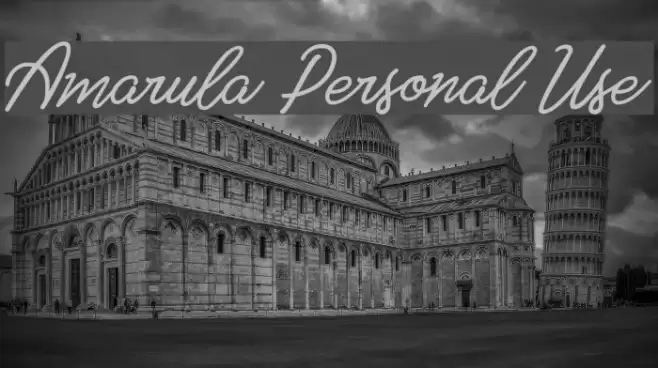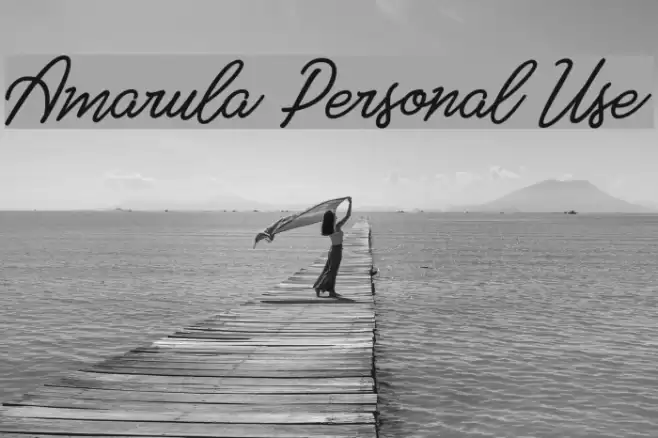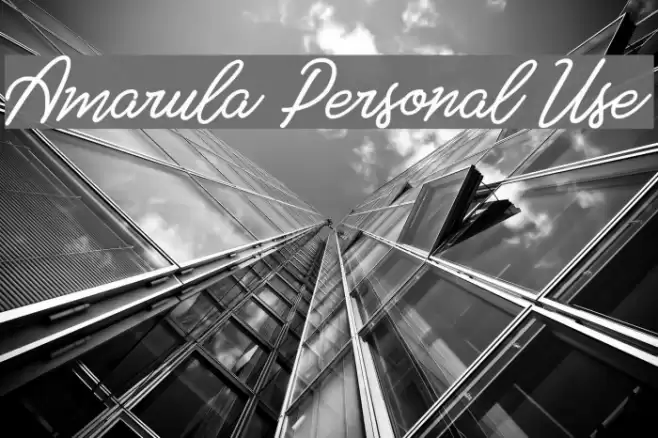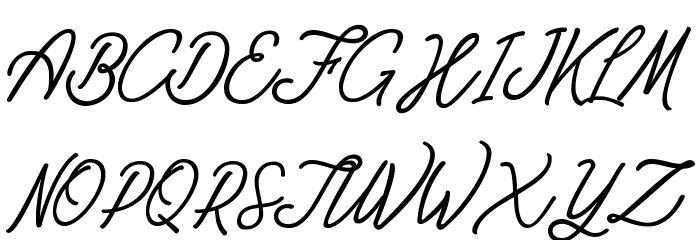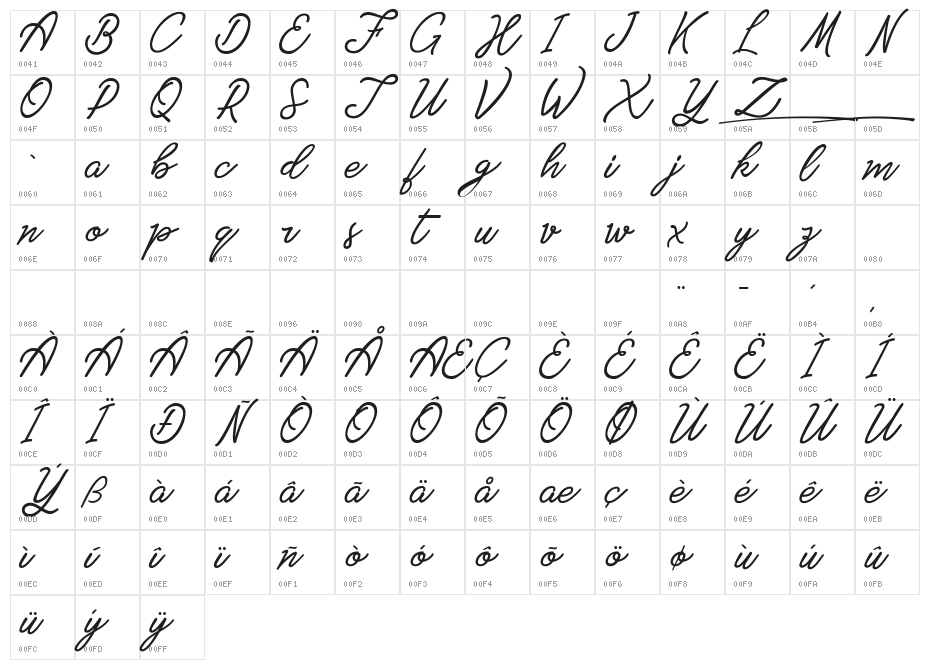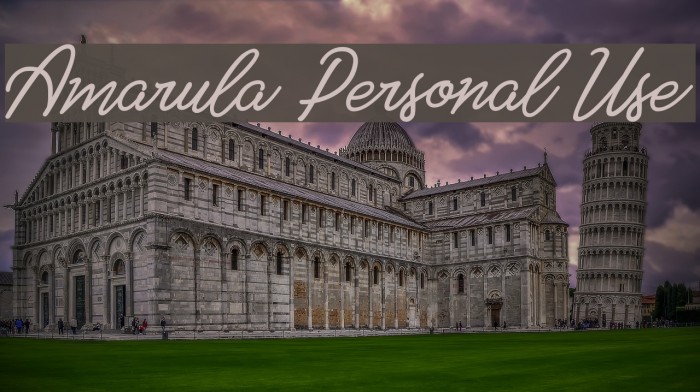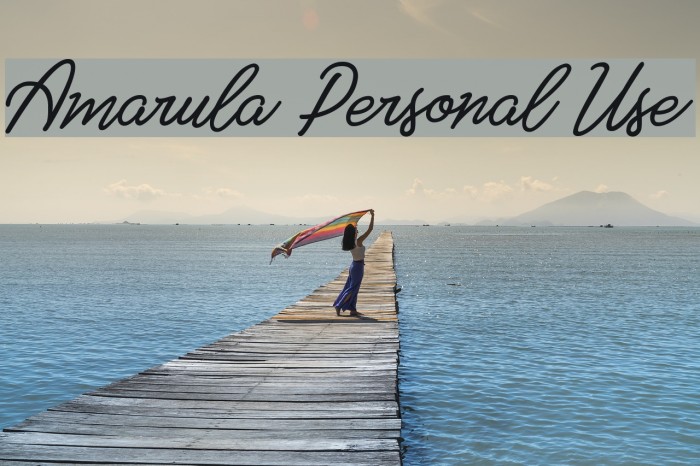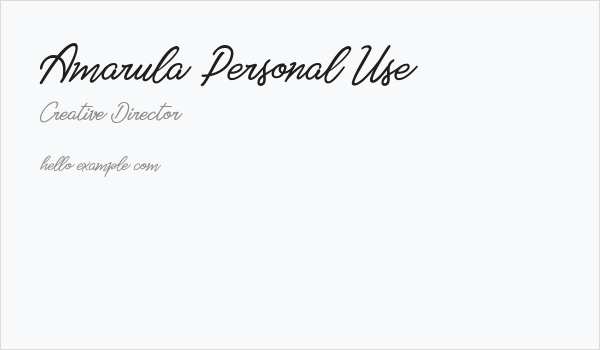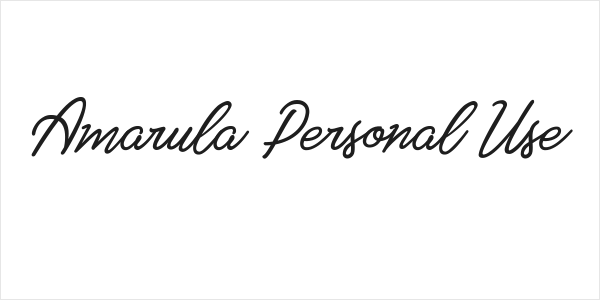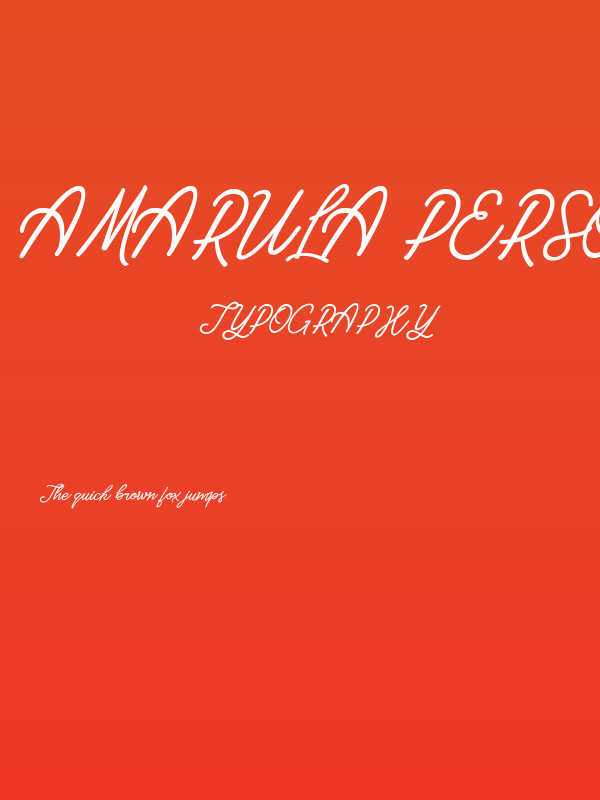
Amarula Personal Use Font
Amarula Personal Use Description
This font features a flowing, cursive style that mimics elegant handwriting. The letters are connected, creating a seamless and fluid appearance. The uppercase letters are slightly larger and more pronounced, while the lowercase letters maintain a consistent flow. The strokes are smooth and rounded, with a slight slant to the right, enhancing the script-like quality. The font exudes a sense of sophistication and grace, making it suitable for formal and decorative purposes. The overall design is balanced, with a harmonious blend of curves and loops that add to its charm.
A flowing, cursive script font with elegant, connected letters from Uncategorized fonts.
- Proposed Projects: Ideal for wedding invitations, greeting cards, logos, and branding materials that require a touch of elegance.
- Overall Style: Elegant, Decorative
- Use Case: Logos, Invitations, Decorative text